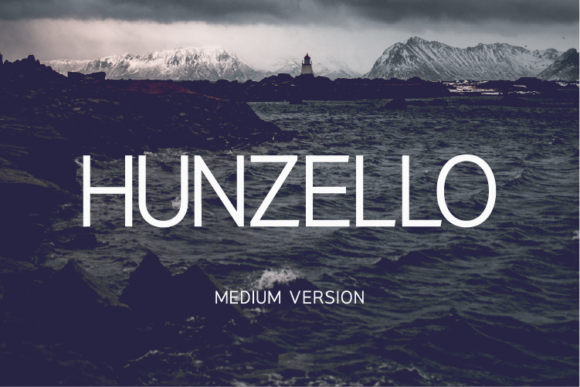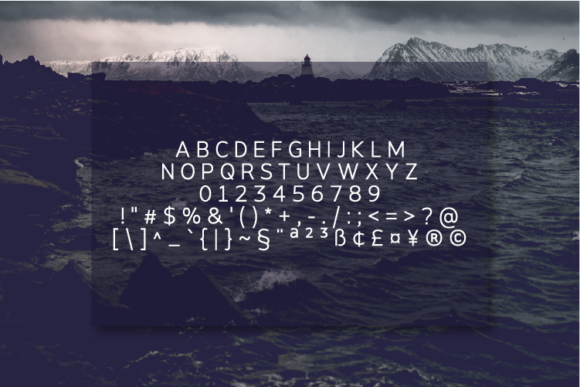
HomeSans Serif FontsHunzello Medium Font Sans Serif Fonts Hunzello Medium Font FacebookTwitterPinterestWhatsApp Hunzello Medium Font 1 of 2 About Hunzello Medium Font Hunzello is a minimalist and modern sans serif font with an undeniably clean feel. With its neat and beautiful arrangement of letters, this typeface will look outstanding in both formal and non-formal designs. DOWNLOAD NOW 236 0 People also explored Rinjani Font Le Royale Font Home is Sweet Font Yellena Font Sunday Font Monday Font Valyrianth Font Snowmen Font Valentina Font Luvdove Font Timitty Duo Font Night Fox Font TagsHunzello Medium Font Previous articleHunzello Semi-Bold FontNext articleHunzello Regular Font LEAVE A REPLY Cancel reply Comment: Please enter your comment! Name:* Please enter your name here Email:* You have entered an incorrect email address! Please enter your email address here Website: Save my name, email, and website in this browser for the next time I comment. BLOG Font Trends 2025: Top Typography Styles for Spring Best Free Fonts for Logo Design in 2025 (Stylish & Professional) Free Fonts Risk: Why Free Fonts Can Be Dangerous for Designers Where to Buy American Fonts Online in 2024 Personal Use Free Mold Papa Personal Use Free Read more Bethania Personal Use Free Read more Ancient Script Personal Use Free Read more Old Linoleum Personal Use Free Read more